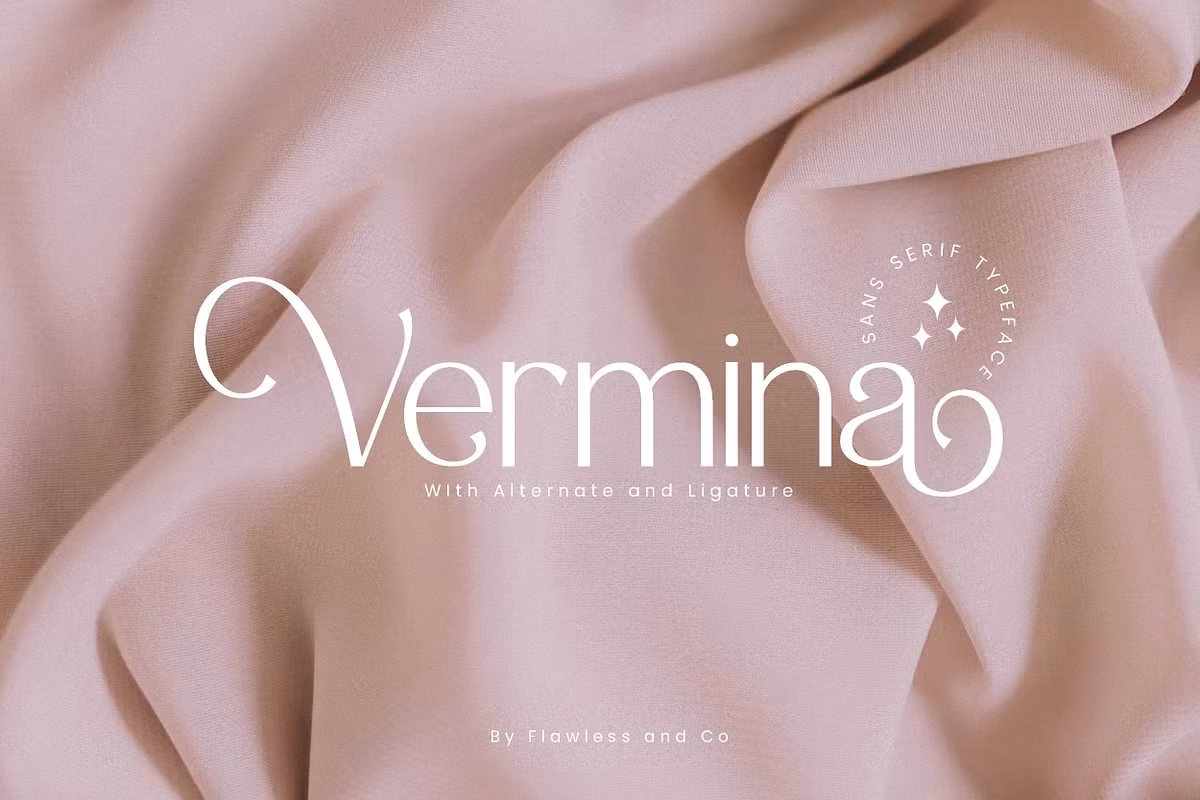
Vermina - Alternate Sans Serif Free Download
Vermina - Alternate Sans Serif Font Free Download
Please note, to use this font for commercial purposes, you must purchase the full version. Vermina is a modern and versatile alternate sans serif font that combines clean lines with unique design elements. Perfect for logos, branding, websites, posters, and editorial designs, this font brings a contemporary and stylish feel to your work. Whether you're designing for a corporate brand, a creative project, or a minimalist campaign, Vermina adds a polished and dynamic touch to your designs. Test it out and enjoy free download access for personal use. Experience the modern elegance of Vermina - Alternate Sans Serif Font Free Download before purchasing the commercial license. Add a unique, stylish touch to your designs with Vermina.